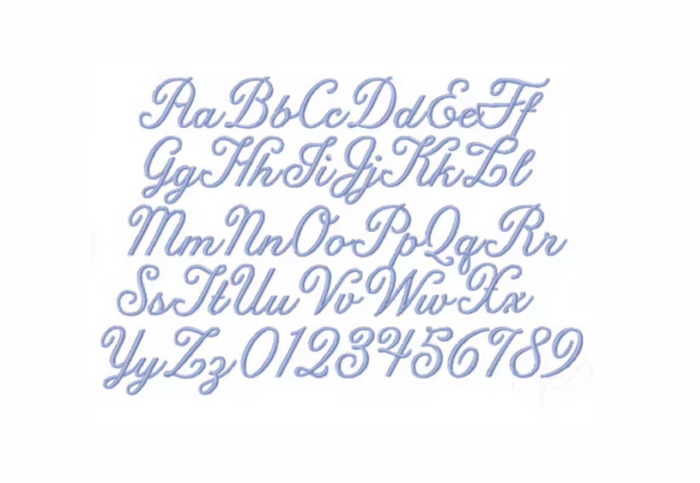
Paris Salon Embroidery Font - 5 Sizes
Unlock your creativity with the Paris Salon Embroidery Font, featuring 5 distinct sizes crafted to elevate your monogramming projects. Designed in the popular Emily Script Satin Stitch style, this font package offers excellent versatility, making it a must-have for any crafter.
The sizes included in this package are: 0.5", 1", 1.5", 2", and 2.5", with 52 letters for each size, encompassing uppercase and lowercase letters as well as numbers 0-9. Each size is perfect for a variety of applications, ensuring you find the ideal fit for your unique projects.